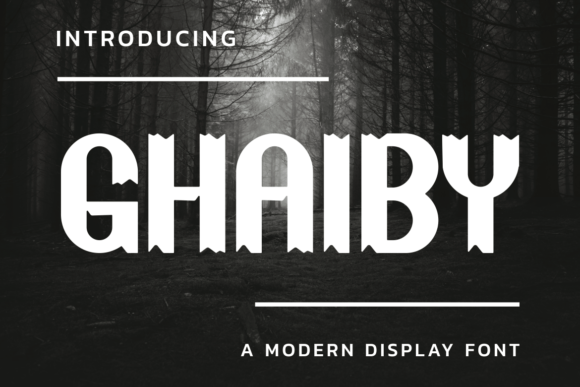
Ghaiby Font: Add a Touch of Youth and Joy to Your Designs
In the world of typography, fonts play a crucial role in conveying the tone and personality of a design. Whether you’re creating party invitations, social media graphics, or branding materials, the right font can make all the difference. If you’re looking for a modern and quirky display font that can add a touch of youth and joy to your designs, look no further than Ghaiby Font.
What is Ghaiby Font?
Ghaiby Font is a contemporary display font that is perfect for designs that require a playful and energetic vibe. With its unique and quirky style, Ghaiby Font is sure to grab attention and leave a lasting impression. This font is ideal for designers and crafters who want to add a touch of personality to their work, whether it’s for a party invitation, a social media graphic, or a branding project.
Key Features of Ghaiby Font
So, what makes Ghaiby Font so special? Here are some of its key features:
• Modern and Quirky Style: Ghaiby Font has a unique and playful style that is perfect for designs that require a touch of youth and joy.
• Display Font: Ghaiby Font is a display font, which means it’s perfect for headlines, titles, and other prominent text elements.
• Easy to Read: Despite its quirky style, Ghaiby Font is easy to read, making it perfect for designs that require a clear and concise message.
• Versatile: Ghaiby Font can be used for a wide range of designs, from party invitations to social media graphics, and even branding materials.
Use Cases for Ghaiby Font
So, how can you use Ghaiby Font in your designs? Here are some use cases to get you started:
• Party Invitations: Add a touch of youth and joy to your party invitations with Ghaiby Font. It’s perfect for birthday parties, baby showers, and other celebrations.
• Social Media Graphics: Use Ghaiby Font to create eye-catching social media graphics that will grab attention and drive engagement.
• Branding Materials: Add a touch of personality to your branding materials, such as business cards, brochures, and flyers, with Ghaiby Font.
• Swimming Gatherings: If you’re organizing a swimming gathering or a water-themed event, Ghaiby Font is the perfect choice to add a touch of fun and playfulness.
Tips for Using Ghaiby Font
Here are some tips for using Ghaiby Font in your designs:
• Use it Sparingly: Ghaiby Font is a display font, so use it sparingly to avoid overwhelming your design.
• Pair it with Other Fonts: Pair Ghaiby Font with other fonts to create a unique and visually appealing design.
• Experiment with Colors: Experiment with different colors to find the perfect combination that works with Ghaiby Font.
In conclusion, Ghaiby Font is a modern and quirky display font that is perfect for designs that require a touch of youth and joy. With its unique style, versatility, and ease of use, Ghaiby Font is a great addition to any designer’s toolkit. Whether you’re creating party invitations, social media graphics, or branding materials, Ghaiby Font is sure to make your designs stand out. So, why not give it a try and see how it can elevate your designs?